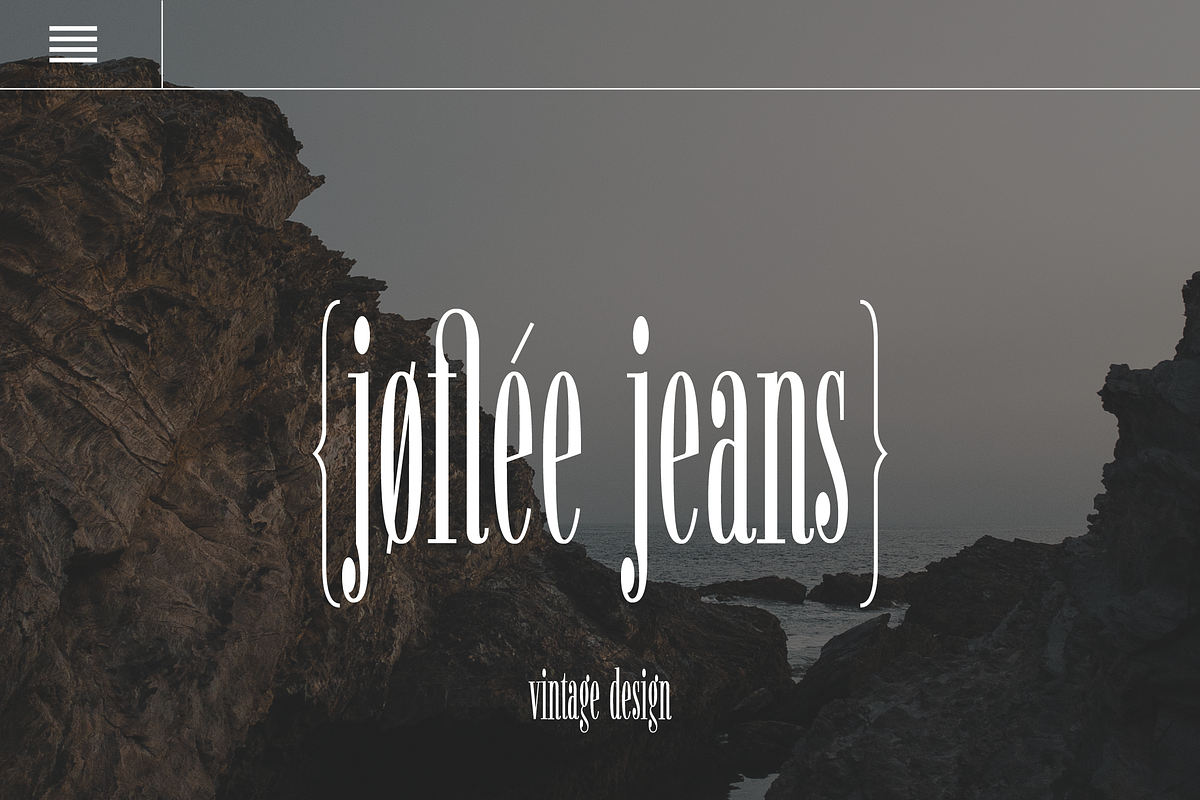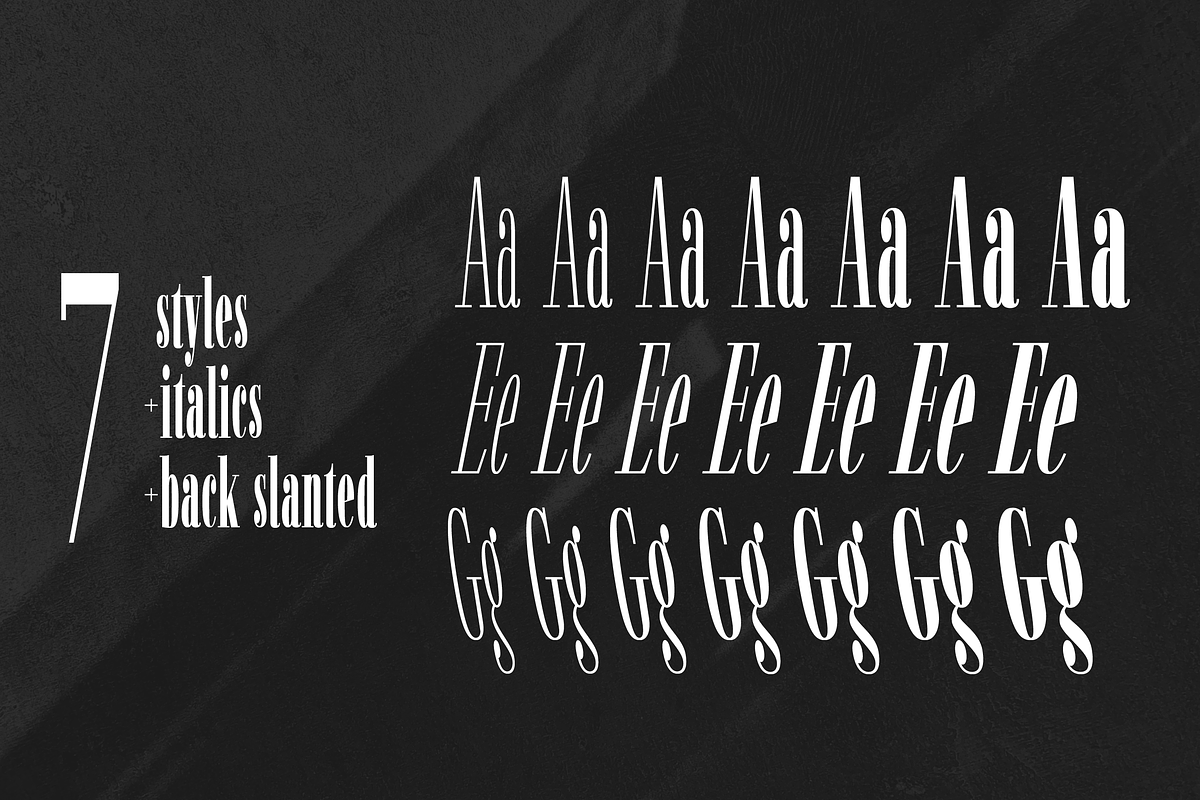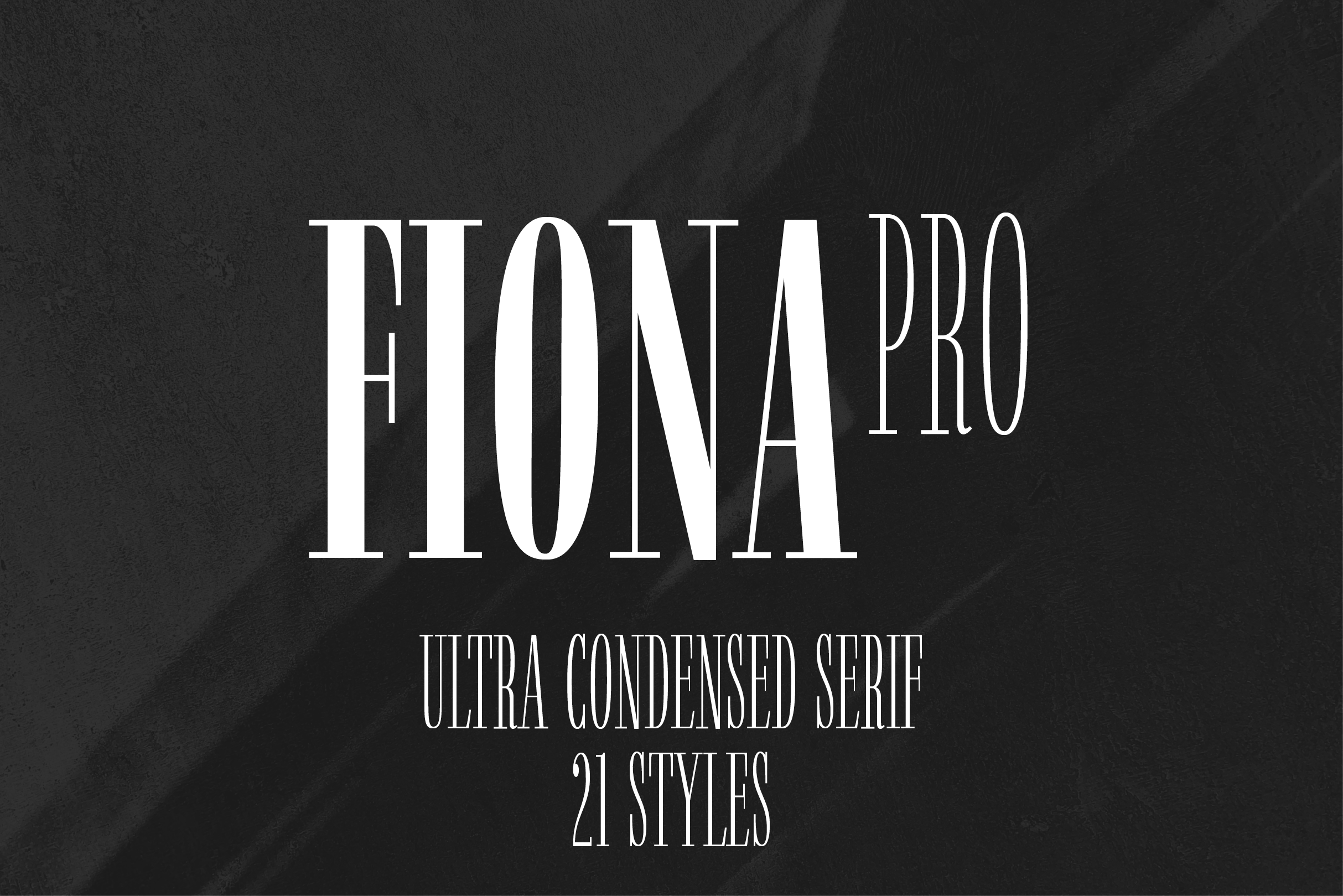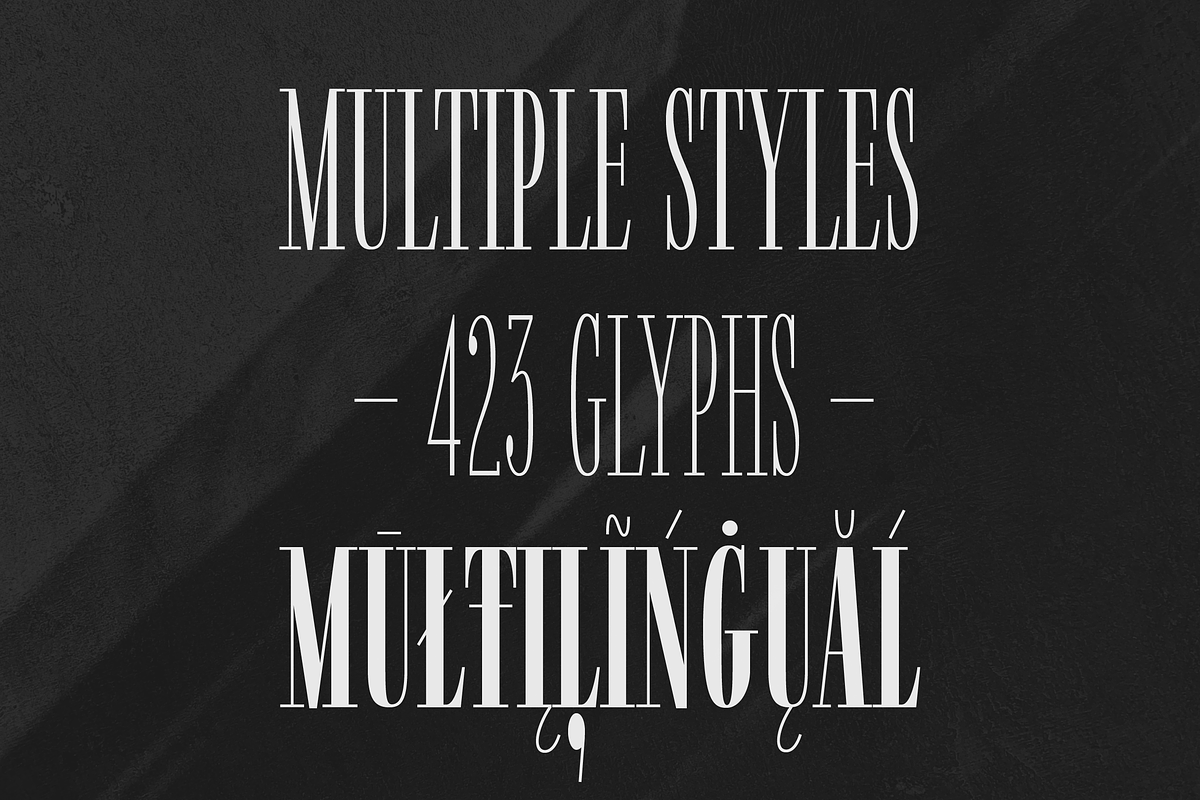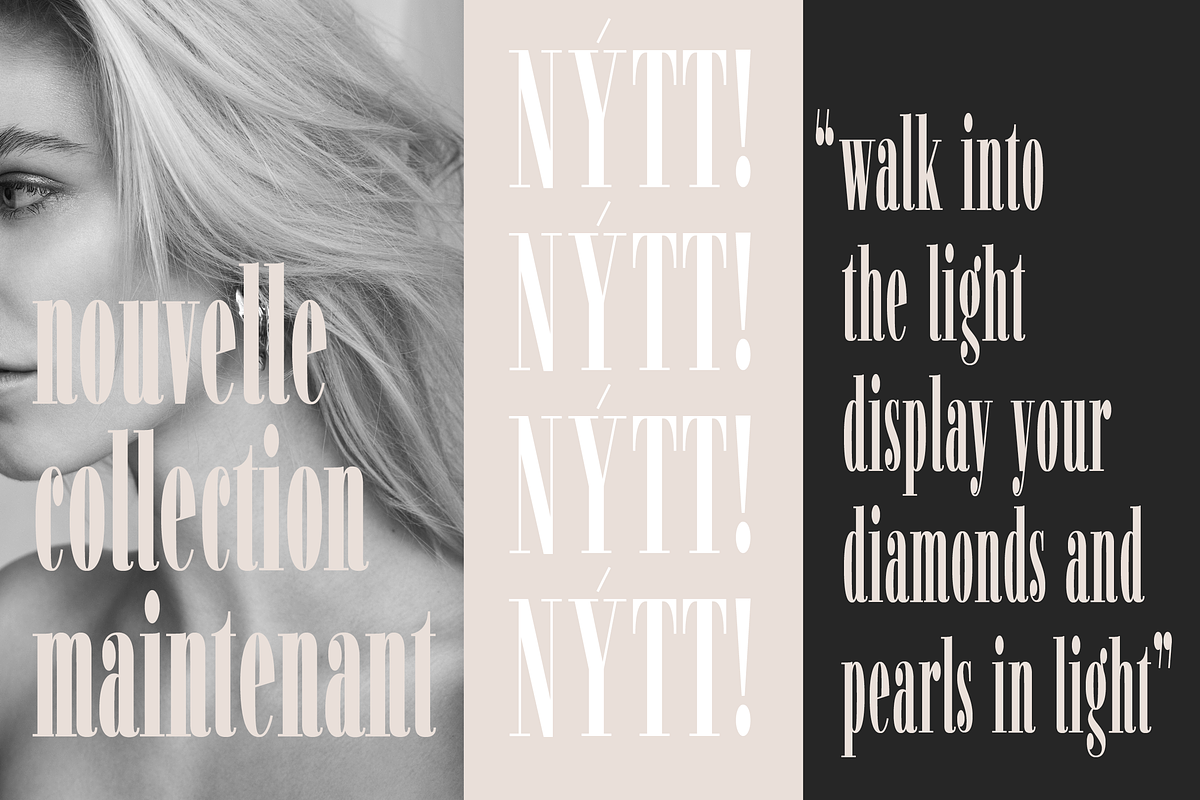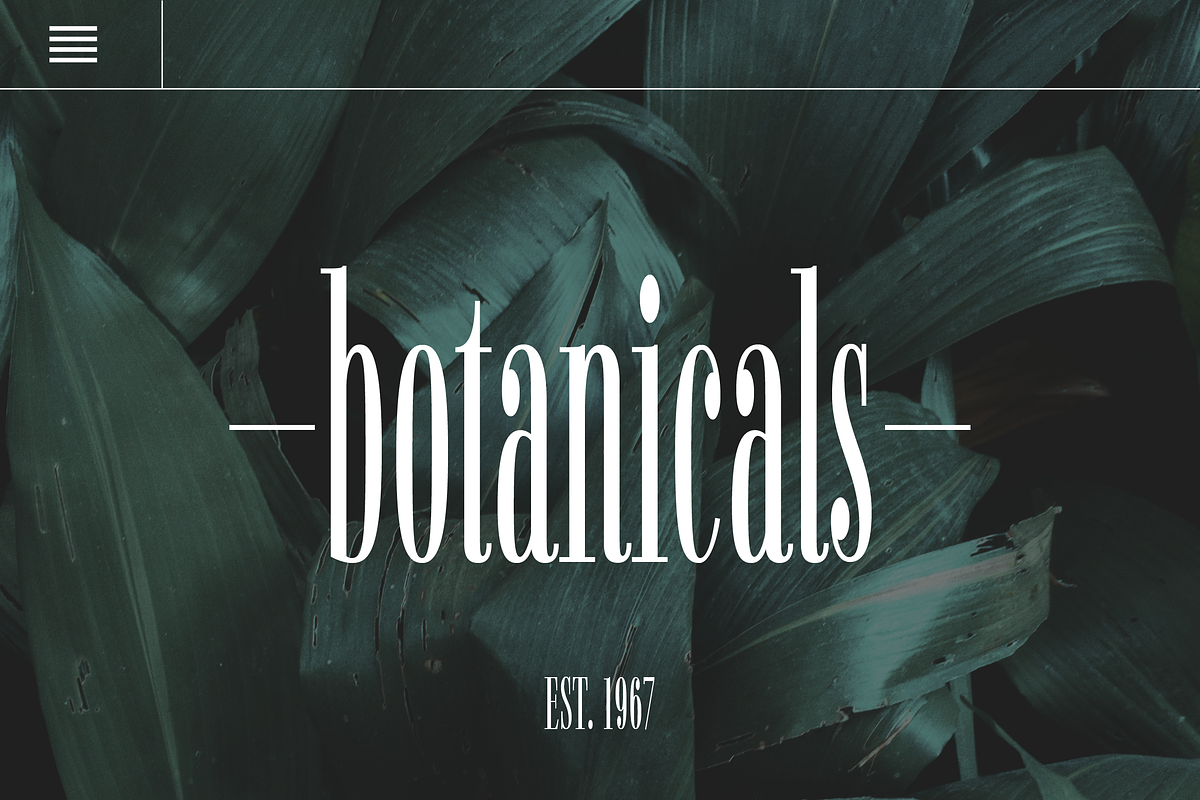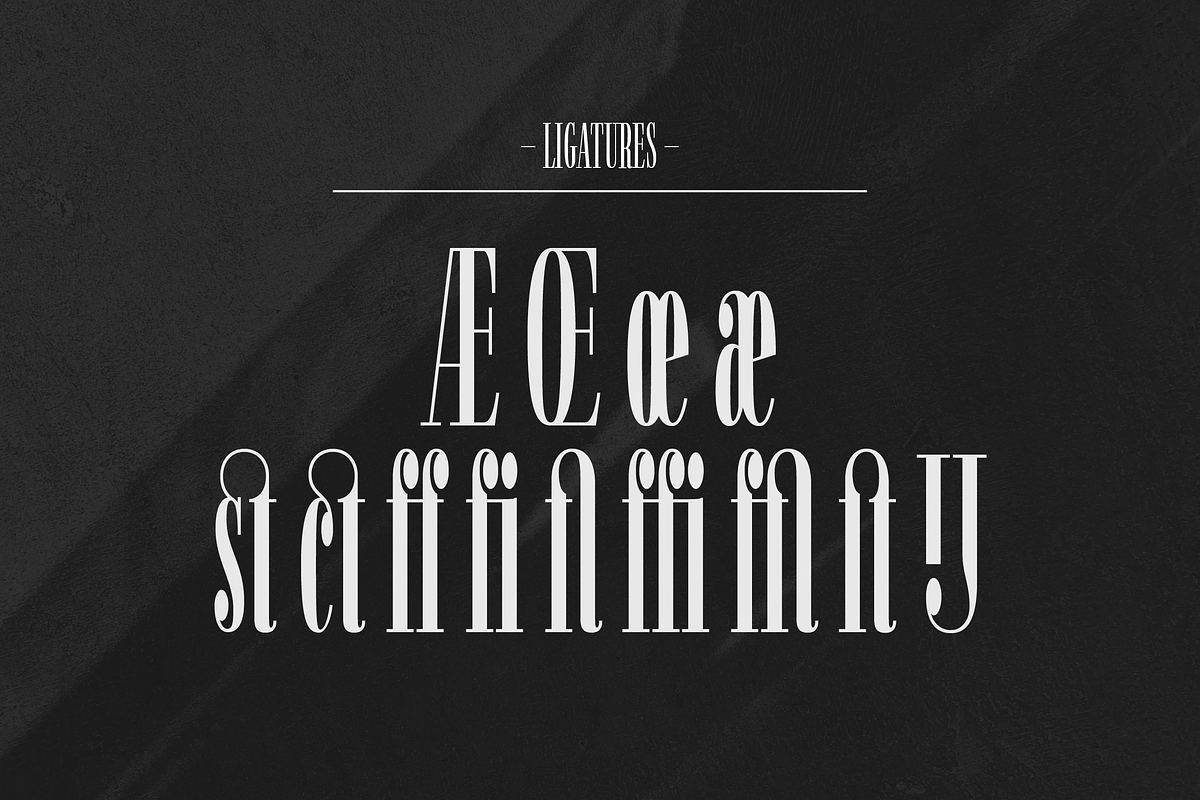
Fiona Pro Font Family (21 Styles)
Fiona Pro is the Extra Condensed answer to the beautiful didones of this world with a modern twist. It is made for brave designers who are not afraid to design big attention grabbing designs, whether it be on screen or in print. The recognition value of Fiona Pro is its biggest asset in world of uniformity. Fiona Pro's strong contrast is an homage to the great times of graphic design and makes it so elegant.
Equipped with an italic version as well as a back slanted version for every style there is nothing you can't design with this beauty.
OpenType Features Kerning, Alternates, Ligatures, Additional Numbers, Alternate Cases